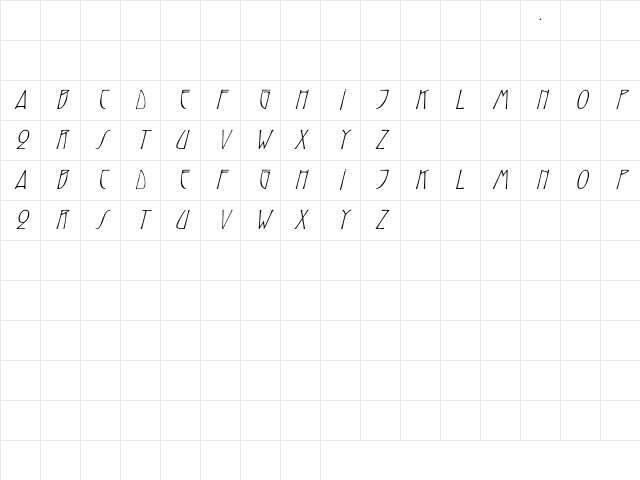
ReynoldCaps italic Italic Free Font
ReynoldCaps italic Italic
Design Context for ReynoldCaps italic
ReynoldCaps italic is a composed and adaptable typeface that performs quietly and consistently across a wide range of design contexts. The slanted form adds forward momentum and visual energy.